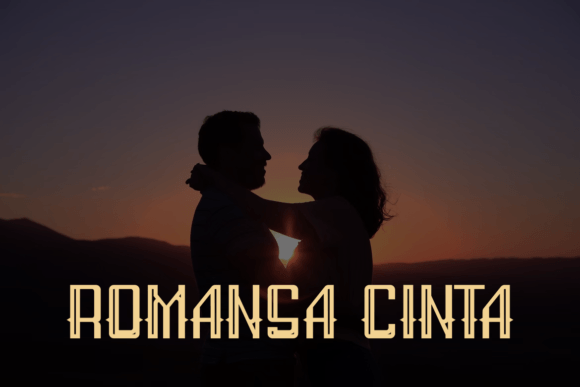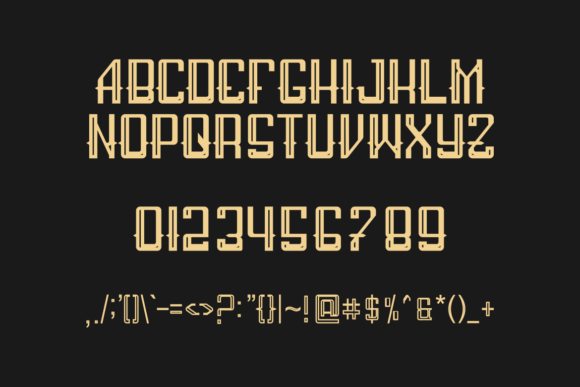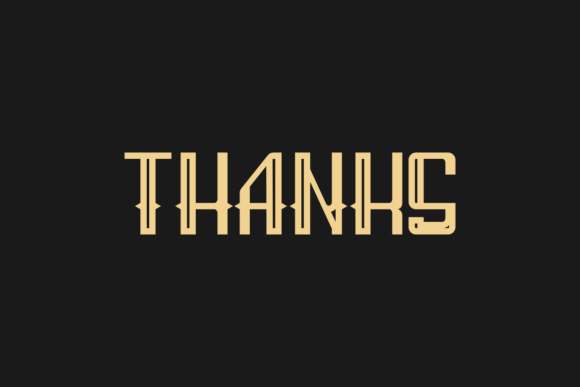
Introduction to Greekno Font
As a designer, have you ever stumbled upon that perfect font that elevates your entire creative project? For many, that moment comes when they discover a high-quality, modern display font that adds an extra layer of sophistication to their design. That’s exactly what you’ll get with the Greekno Font – a cool and modern display font that’s sure to leave a lasting impression.
Whether you’re working on a design project that requires a sleek, urban feel or a free download for a personal creative endeavor, the Greekno Font is an excellent choice. With its transparent background and high-quality design, this font is a valuable resource for any designer looking to add a touch of elegance to their work.
Key Features of Greekno Font
- Unique, stylish font with a transparent background, perfect for adding a touch of elegance to your design.
- Features a clean, modern design with a size range of 100-800 points, suitable for a variety of applications.
- Designed to be versatile and adaptable, making it an excellent choice for various creative projects, including logos, branding, and typography.
Honest Review: Greekno Font
I recently stumbled upon the Greekno Font while searching for a unique design resource to elevate my creative project. I was excited to explore this font and see if it would meet my expectations.
What doesn’t work well: ⚠️ One of the limitations of the Greekno Font is that it’s not suitable for long blocks of text. The font is best used for headings, titles, and short paragraphs. Additionally, the font may not be compatible with all operating systems, so be sure to test it before using it in a live project.
Overall impression: I was impressed with the Greekno Font’s unique design and high-quality features. While it has some limitations, it’s a great resource for designers who need a creative and eye-catching font for their projects.
- Unique design
- High-quality features
- Best used for headings, titles, and short paragraphs
How to Use Greekno Font
The Greekno Font is a high-quality design resource available for free download. This versatile font features a transparent background, making it ideal for creative projects that require a clean and minimalist aesthetic.
To get the most out of the Greekno Font, use it in combination with other design elements, such as bold colors and clean typography. Experiment with different font sizes and styles to create visually appealing designs.
The Greekno Font is suitable for a wide range of creative projects, including:
- Graphics and posters
- Social media graphics and content